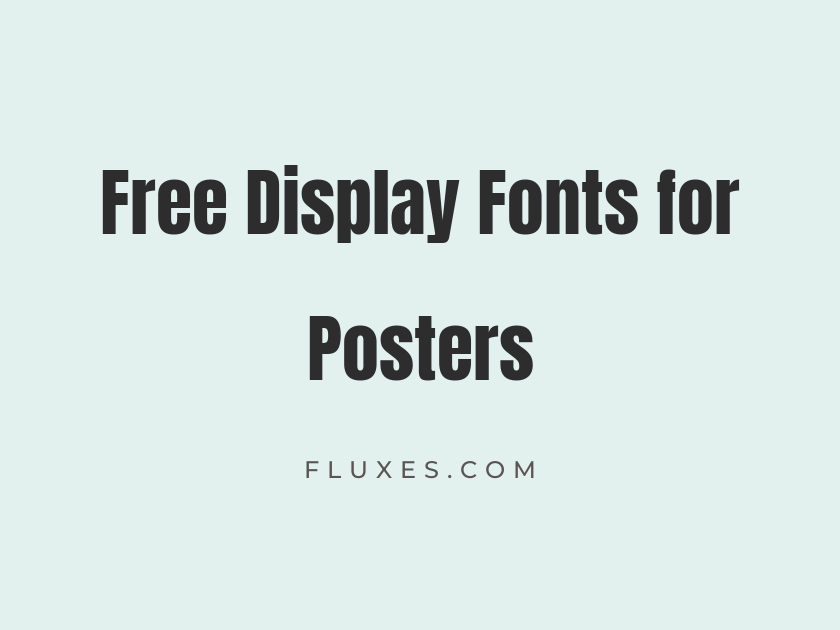
64 Best Free Display Fonts for Posters
A poster only gets a second or two to do its job, so the typeface carrying the headline has to work harder than almost any other type choice you’ll make. Display fonts for posters need scale, presence, and a bit of attitude: they’re read from across a room, a street, or a screen thumbnail, which means subtlety is rarely the goal. The good news is that some of the boldest, most characterful headline fonts in the world are sitting in Google Fonts for free, ready to download and drop into a flyer, gig poster, movie one-sheet, or event announcement without a licensing fee in sight.
What follows spans ultra-condensed grotesques, art deco slabs, horror-movie scrawls, neon-lit scripts, and a few genuine oddballs, all chosen because they hold up at poster scale and carry real personality rather than just filling space.
Anton is the font people reach for when they need maximum volume with zero fuss. Its condensed, ultra-bold letterforms pack an enormous amount of visual weight into a small footprint, which makes it brilliant for headlines that need to dominate a page without eating up space meant for imagery.
Few free fonts have been adopted as widely for posters and title cards as Bebas Neue. Tall, all-caps, and completely without lowercase, it reads as clean and modern rather than shouty, which is why it turns up on everything from indie gig flyers to fitness studio signage.
Archivo Black trades condensed drama for sturdy, geometric confidence. It’s less flashy than some of the fonts here, but that restraint makes it a dependable workhorse for posters that need a headline to feel authoritative rather than theatrical.
Technically a condensed sans built for text, Oswald earns its place on poster layouts thanks to a bold weight that stays crisp at large sizes and pairs cleanly with almost any body copy underneath it.
Staatliches has a slightly warped, hand-cut quality to its condensed caps that gives it more character than a typical grotesque. It suits sale posters, market signage, and anything that wants a bit of scrappy energy without tipping into full novelty territory.
Fjalla One is quieter than most fonts on this list, a condensed sans with soft, rounded terminals that keep it from feeling harsh at large sizes. It works well when a poster needs a strong headline that still feels approachable.
Squada One
Chunky, rounded, and unapologetically bold, Squada One has a comic-book energy that suits sports posters, kids’ event flyers, and anything that wants to feel fun and forceful at once.
Days One
Days One rounds off its bold strokes just enough to feel friendly rather than aggressive. It’s a solid pick for community events, food festivals, and posters aimed at a broad, casual audience.
Teko is a lean, angular condensed sans with a faint technical, engineered feel, which makes it a natural fit for motorsport, esports, or tech-conference posters where the type needs to feel fast and precise.
Racing Sans One
As the name suggests, Racing Sans One leans hard into motorsport and speed. The rounded, slightly squashed caps give it a retro racing-livery feel that works well for anything with a competitive, adrenaline-driven theme.
Bungee was designed with urban signage in mind, and it shows: thick, blocky, and built to survive being read at a glance from a moving car. The full Bungee family also includes Inline, Shade, and Outline styles, so a single poster can layer several treatments of the same shape for a layered, sign-painted effect.
Unbounded
Unbounded has a bouncy, slightly rounded geometric structure with a contemporary, almost app-icon feel. It suits posters for tech events, design conferences, or anything wanting to look current rather than nostalgic.
Stenciled and militaristic, Black Ops One is a shortcut to a tough, no-nonsense mood. It’s a natural fit for gaming posters, action movie promos, or fitness bootcamp flyers, though it can feel one-note if overused outside that lane.
Alfa Slab One is a heavyweight slab serif with thick, confident forms that echo old circus and wanted-poster typography. It carries an American vernacular feel that suits western themes, barbecue joints, and playful retro branding.
Bevan is a slab serif with slightly rounded, worn-looking edges that give it a vintage storefront quality. It reads as sturdy and old-fashioned in the best way, good for craft fairs, farm-to-table events, and heritage brands.
With this range of weights, moods, and eras to pull from, there’s a free display font here for nearly any poster brief, from a minimalist gallery announcement to a full-color, sideshow-loud street festival flyer.